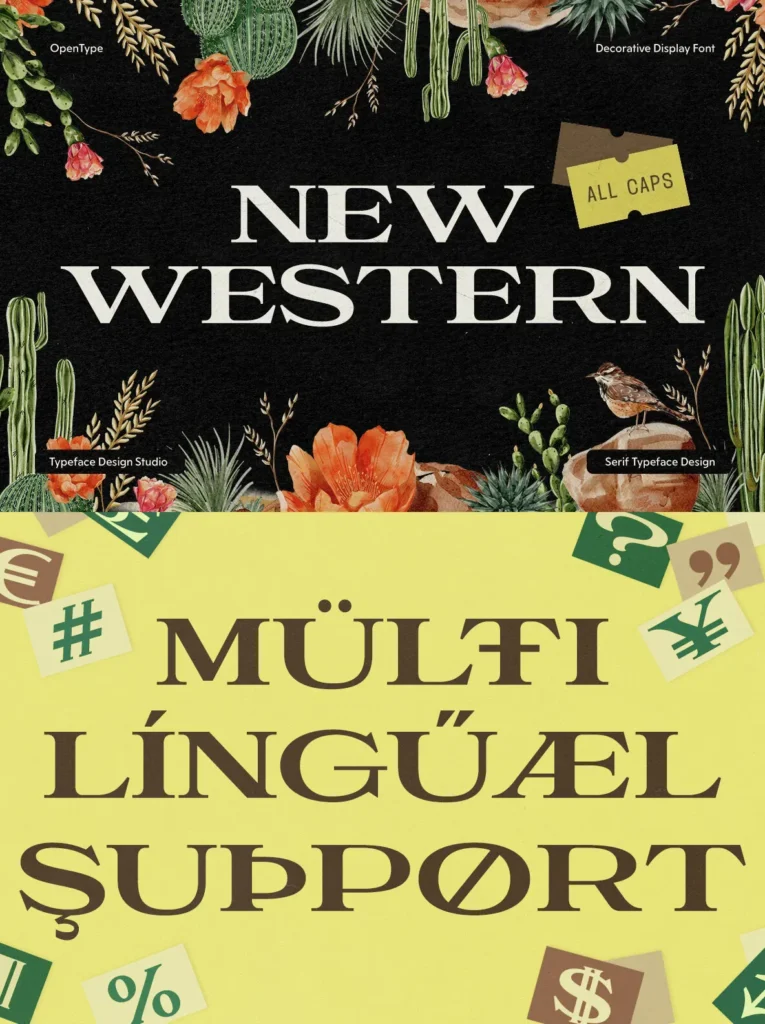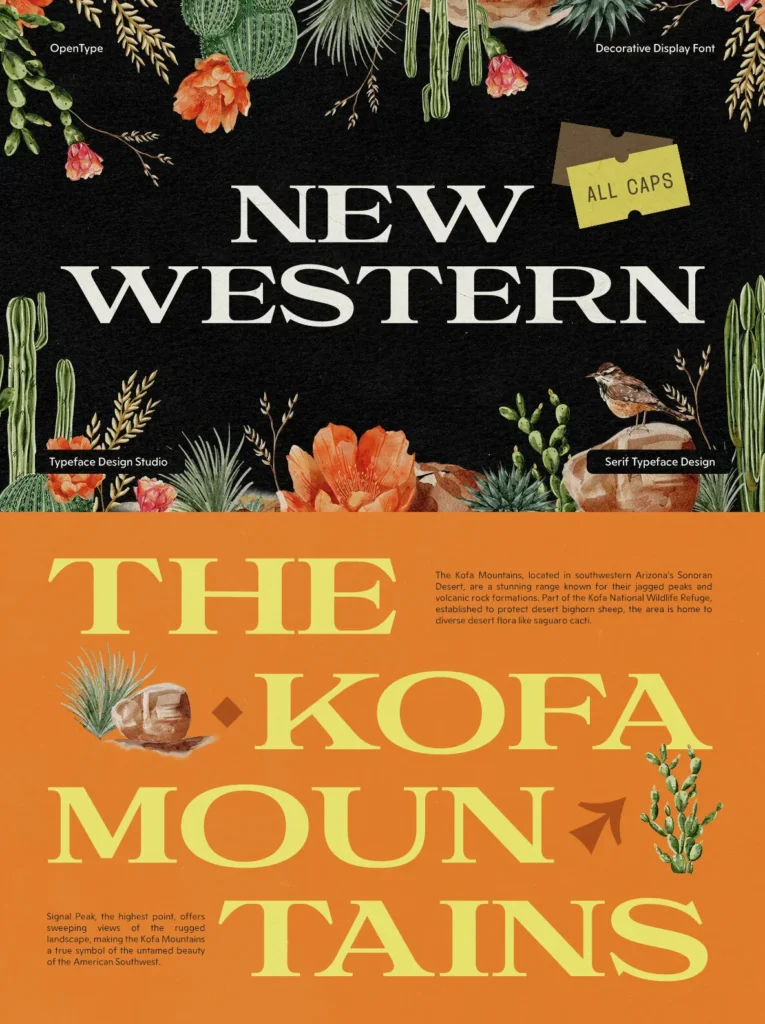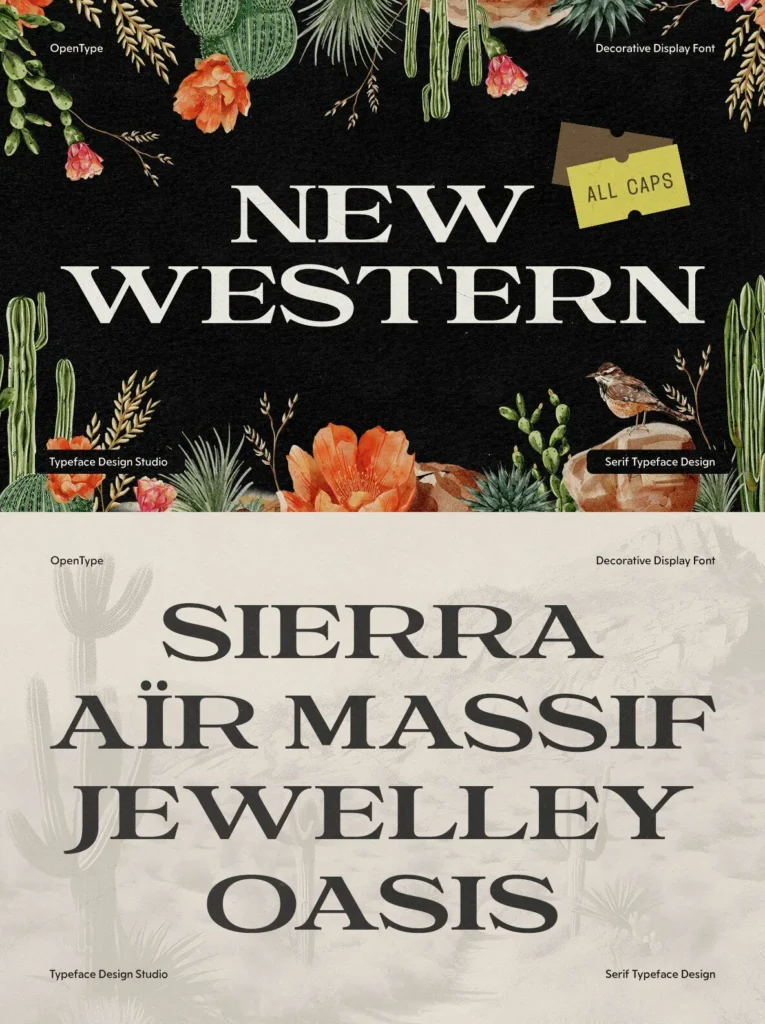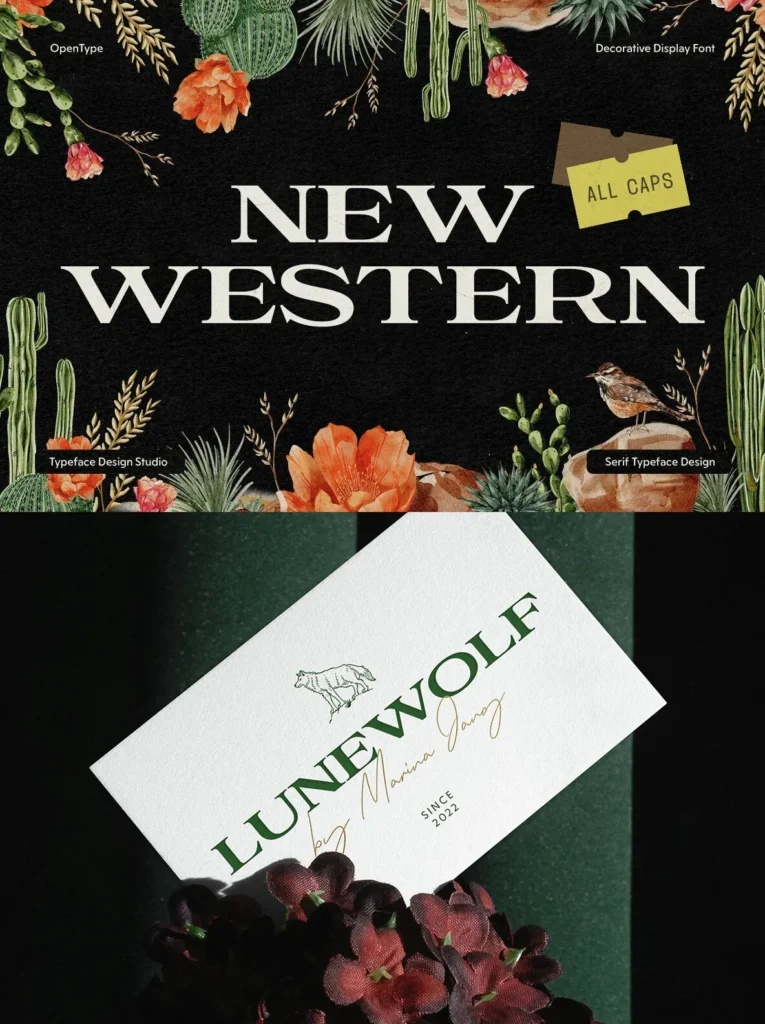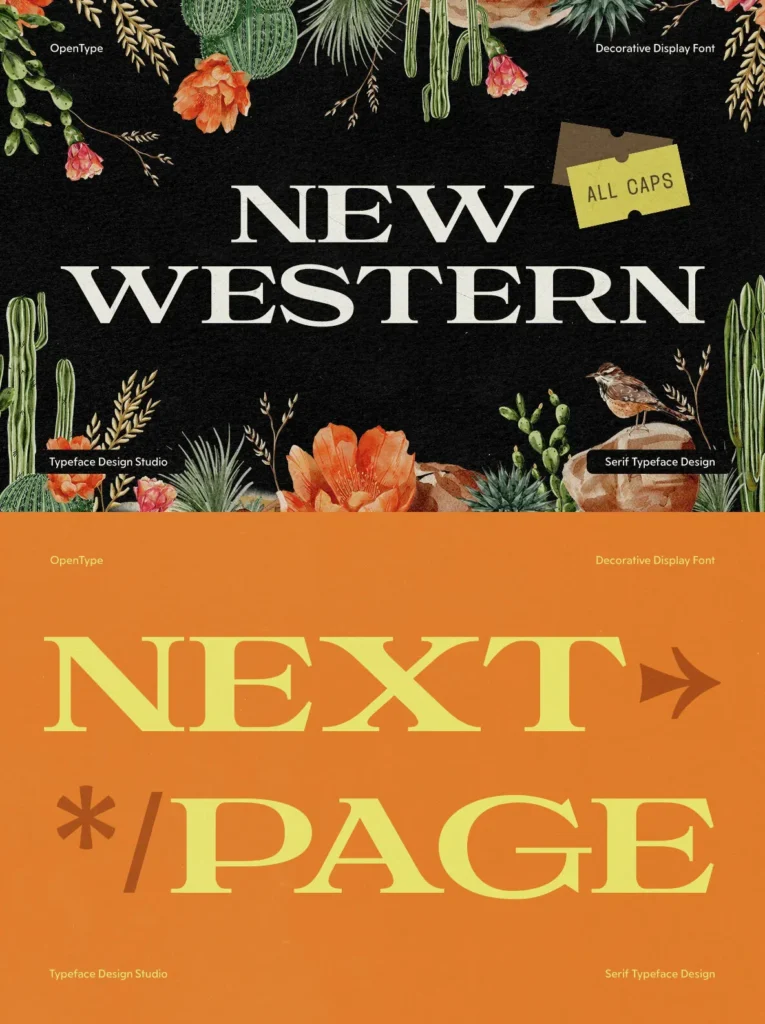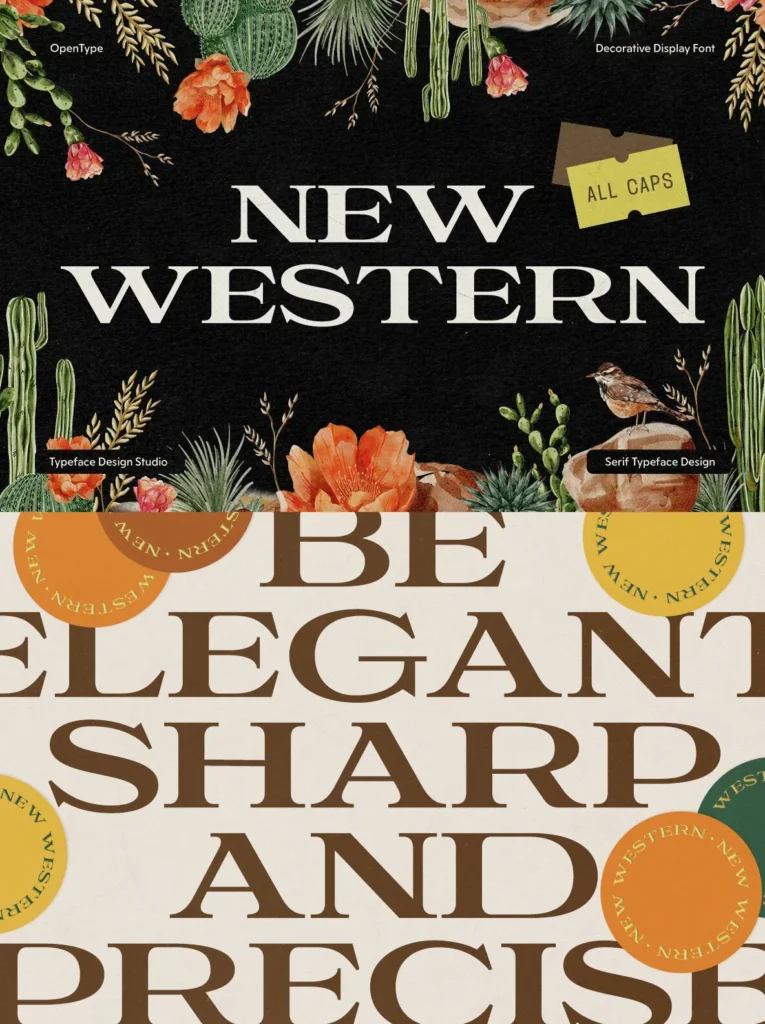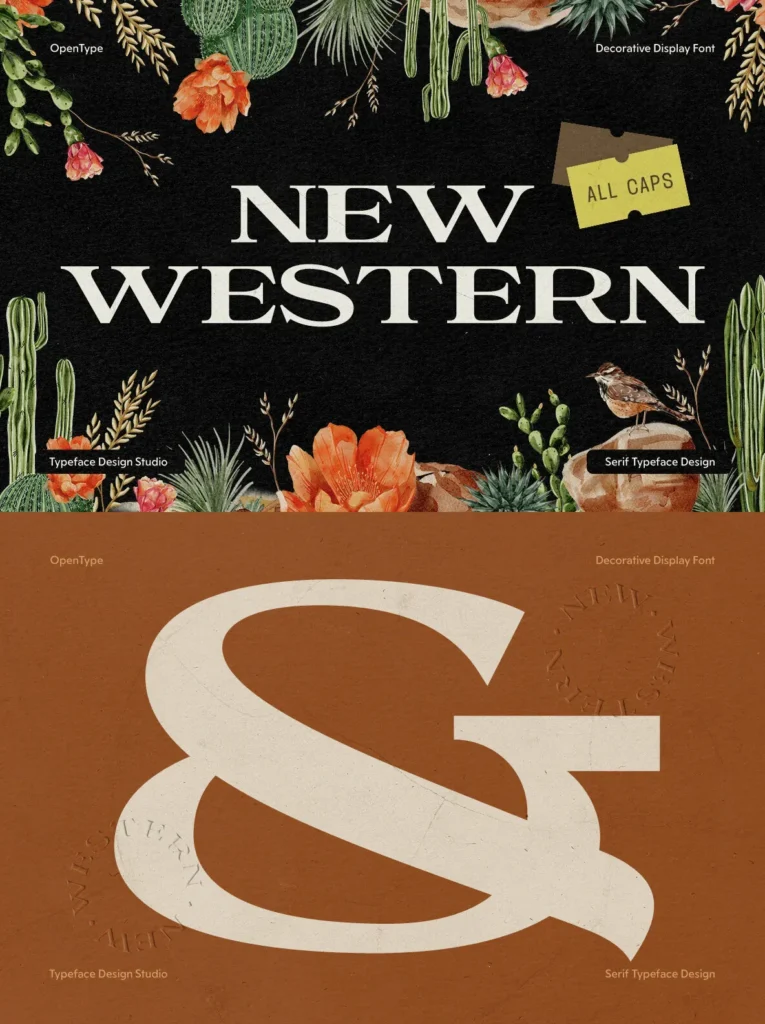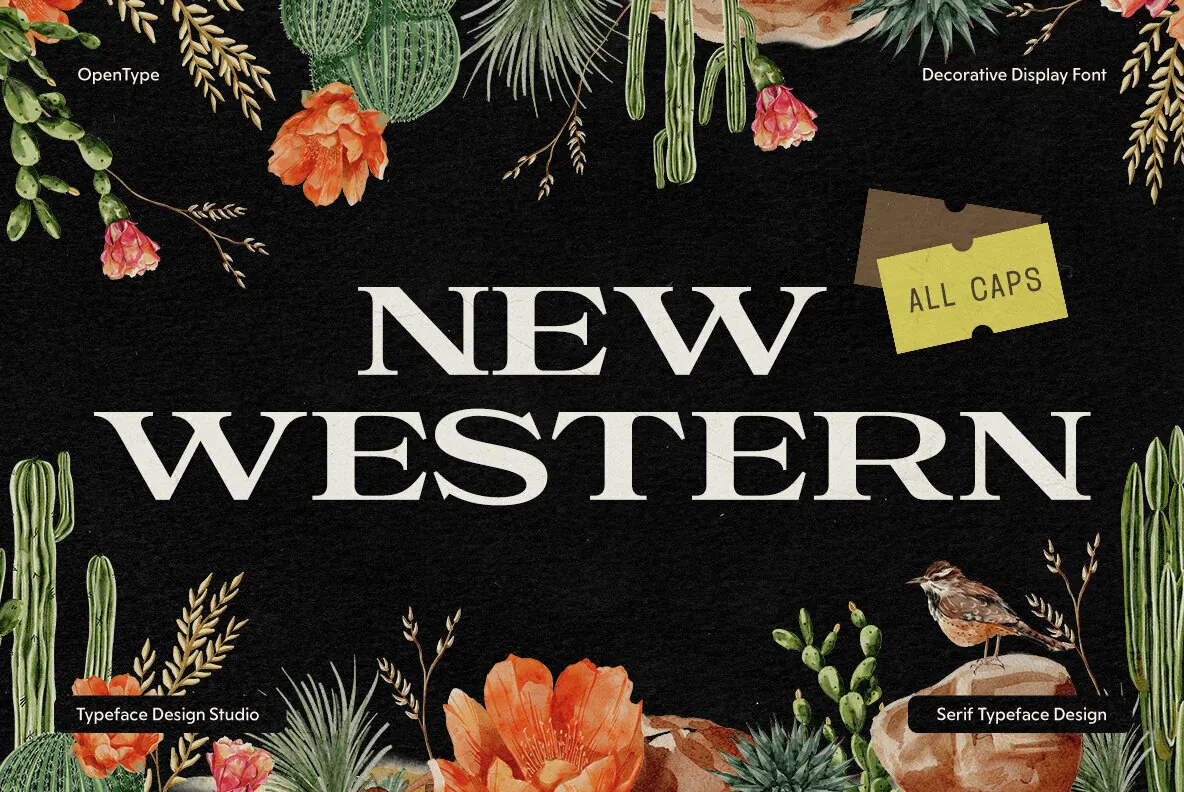
New Western Font
New Western: Elegance Meets Frontier Spirit
New Western is a serif font that artfully combines the rugged charm of the frontier with refined typographic elegance. Featuring bold, structured letterforms and sharp serifs, this typeface embodies the timeless allure of the American West. Whether you’re designing for luxury branding, editorial spreads, or signage, New Western’s transitional style delivers a powerful visual impact steeped in heritage and sophistication.
A Captivating All-Caps Design
New Western makes a statement with its all-caps design, perfect for headlines and display text. Its wide proportions and clean structure nod to traditional serif fonts while embracing a bold, confident aesthetic. This marriage of rugged and elegant creates a typeface with vintage appeal, ideal for whiskey labels, western-themed designs, and upscale logos.
Comprehensive Multilingual Support
This typeface provides more than just visual allure; it offers extensive multilingual support, ensuring your designs connect across various languages. Each character, from numbers to accented glyphs, is crafted with precision, offering versatility for diverse creative needs. Whether you’re evoking nostalgia for American history or creating modern designs inspired by western themes, New Western meets your vision.
Design Applications
Luxury Branding:
Perfect for high-end products with a vintage flair, such as artisanal goods or boutique labels.
Editorial and Publishing:
Enhances magazine layouts and book covers with its commanding presence.
Event Design:
Ideal for wedding invitations, rustic signage, and themed events needing a touch of frontier charm.
Packaging and Labels:
Its bold serifs and historical undertones are excellent for spirits, coffee brands, and artisanal food products.
The Appeal of New Western
Blending classic and contemporary design principles, New Western is a versatile typeface for a wide array of creative projects. The font echoes the essence of western typography, maintaining a polished, modern aesthetic. It’s more than just a font—it’s a homage to a bygone era infused with resilience and style.